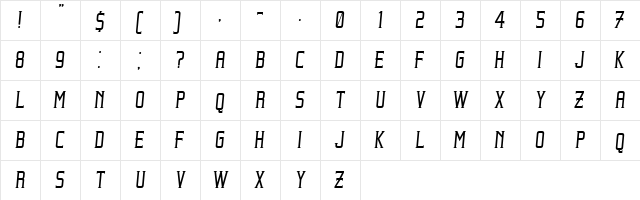
Beholder Italic Font Preview
Beholder Italic
Beholder Italic Font Details
Design Context for Beholder Typeface
Beholder is a composed and adaptable typeface that performs quietly and consistently across a wide range of design contexts. The slanted form adds forward momentum and visual energy.
Pro Tip: Use Beholder for emphasis, pull quotes, and subheadings where its slanted energy can add rhythm to the layout.